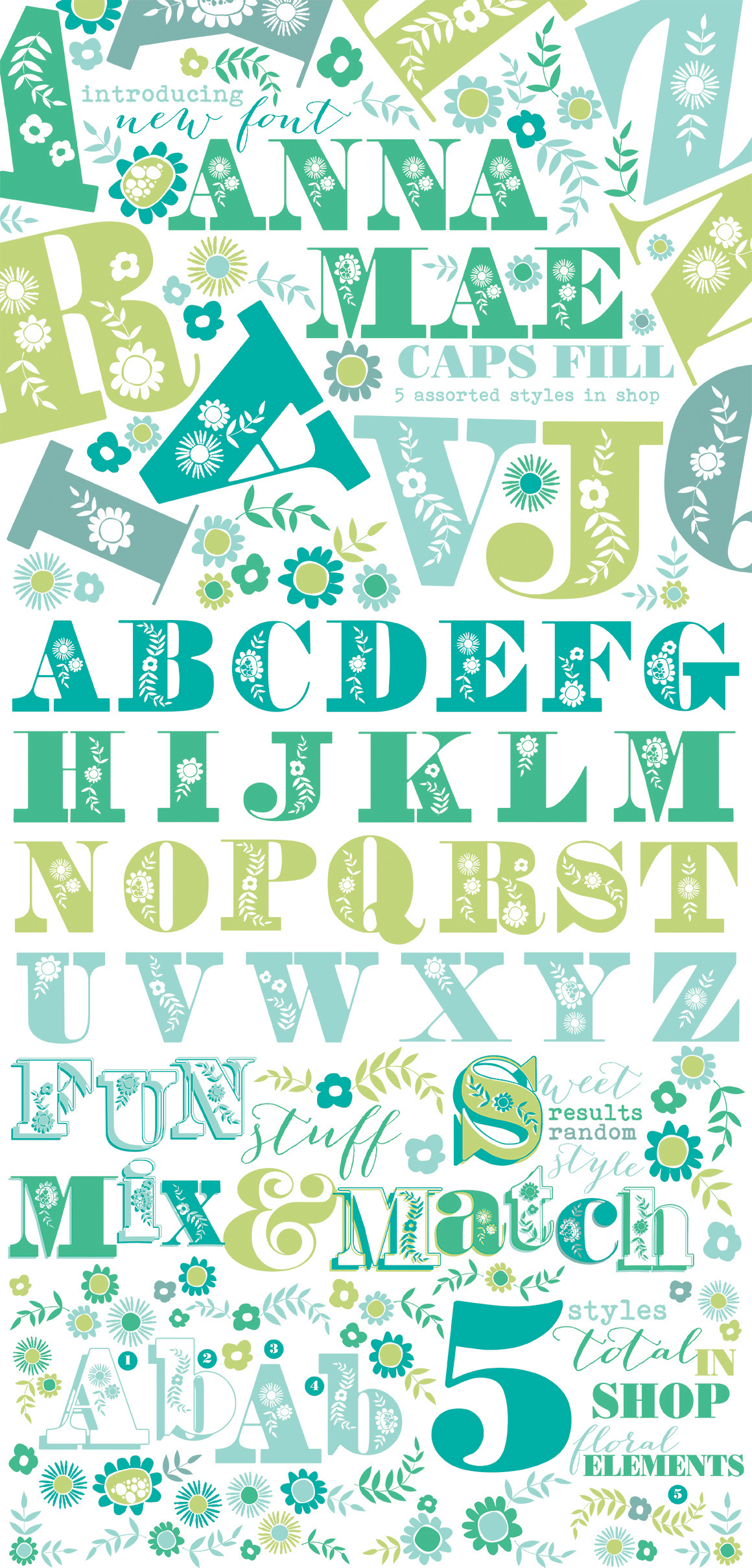
Anna Mea Floral Uppercase Font
This font is also available in lowercase, "In Depth" (with shadows - CAPS and lowers) and floral extras (dingbats) available in my shop. 5 total coordinating fonts.